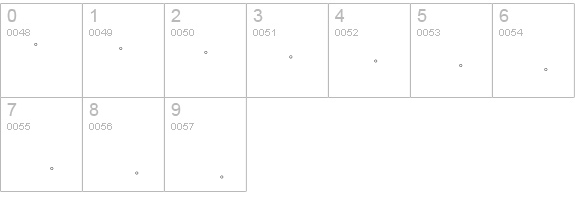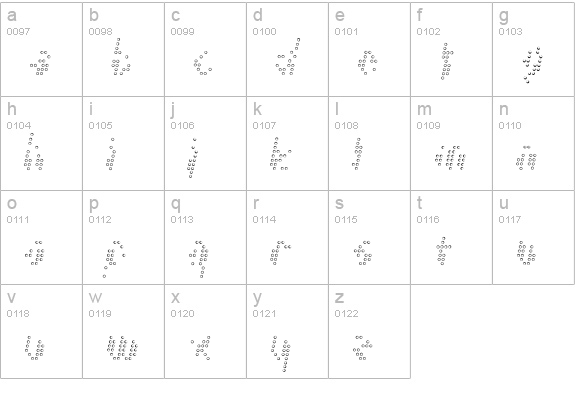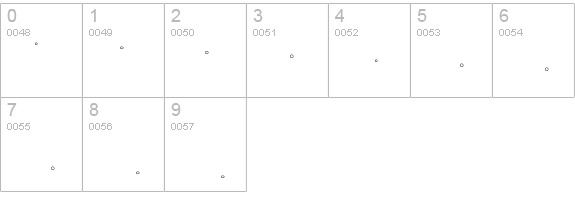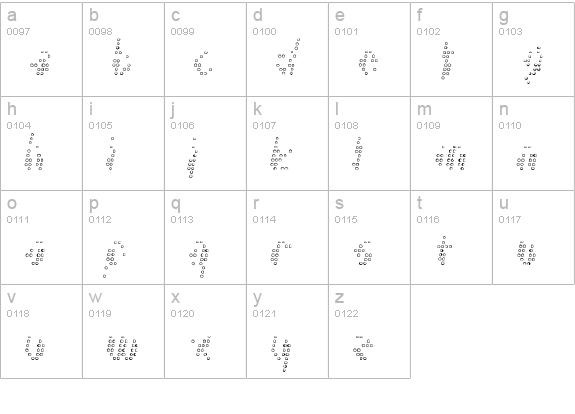
Chaos-Light is a refined, elegant variant in the Chaos typeface family \xE2\x80\x94 well suited to elegant body text, refined sub-headings, and luxury branding.
The Chaos-Light font is a captivating and dynamic typeface that exudes a sense of energy and creativity. With its unique blend of chaotic shapes and light, airy letterforms, this font is perfect for adding a touch of excitement to any design project. Whether you're looking to make a bold statement or simply want to inject some playfulness into your work, Chaos-Light is sure to grab attention. Best of all, this striking font is available for free download at FontsMarket.com. Simply visit the website to get your hands on this eye-catching typeface and start incorporating its bold aesthetic into your designs today. Let Chaos-Light unleash your creativity and bring a sense of excitement to your projects!